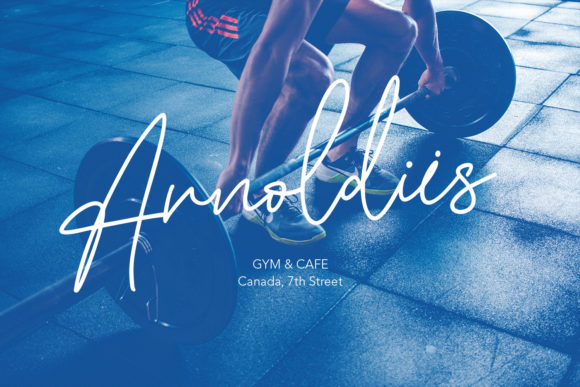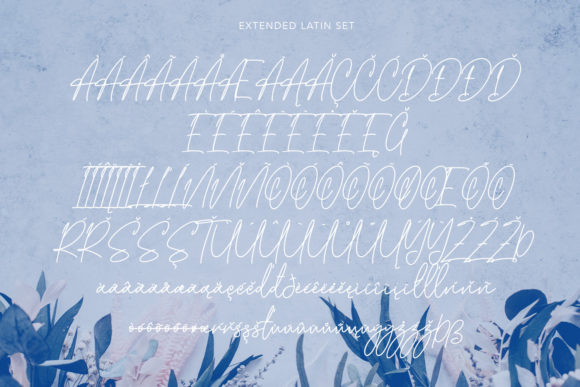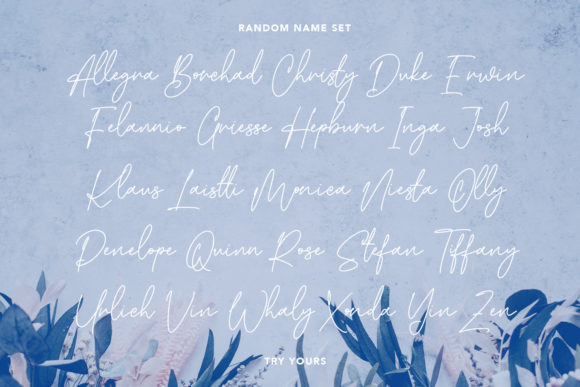
About Chuckybits Font
Chuckybits is a fancy, casual, and thin lettered script font that brings a stylish touch to your designs. With its delicate and elegant curves, this font is perfect for creating stunning wedding invitations, beautiful stationery art, eye-catching social media posts, and more.
When it comes to wedding invitations, Chuckybits adds a touch of elegance and sophistication. Its thin letterforms and stylish flourishes create a romantic and luxurious atmosphere, setting the tone for a memorable event. Whether you’re designing invitations for a traditional wedding, a modern celebration, or a destination wedding, Chuckybits will elevate your designs and leave a lasting impression.
For stationery art, Chuckybits offers a versatile style that can be used for various purposes. Whether you’re creating personalized note cards, art prints, or letterheads, this font brings a touch of sophistication and flair. Its thin lettering adds an airy and delicate feel to your designs, while the casual script style gives it a relaxed and approachable vibe.
When it comes to social media posts, Chuckybits stands out with its eye-catching and stylish look. Whether you’re sharing quotes, promoting products, or announcing special events, this font will grab attention and make your posts more visually appealing. Its thin and casual lettering adds a modern and trendy touch, making your social media presence stand out from the crowd.
The versatility of Chuckybits extends beyond wedding invitations, stationery art, and social media posts. It can be used for various other design projects, such as branding materials, logo designs, packaging, and more. Its thin and casual letterforms bring a stylish and contemporary look to any design, making it suitable for both professional and creative endeavors.
In summary, Chuckybits is a fancy, casual, and thin lettered script font that adds a stylish touch to your designs. Whether you’re creating wedding invitations, stationery art, social media posts, or other creative projects, this font brings elegance, sophistication, and versatility. Fall in love with its incredibly versatile style and let it elevate your designs to new heights.